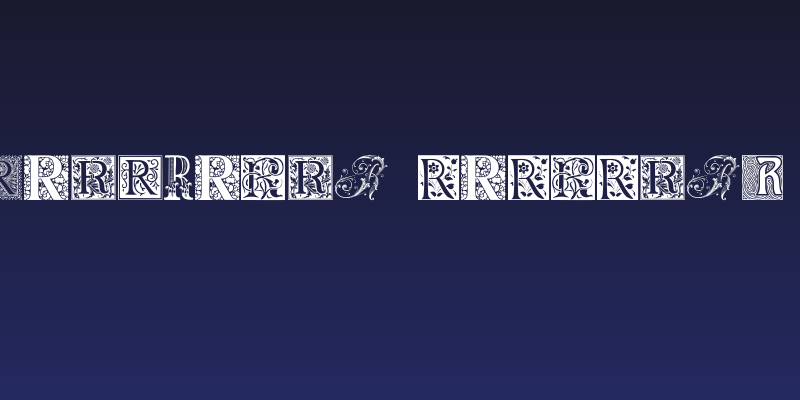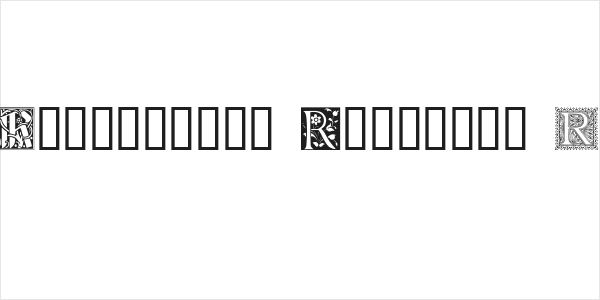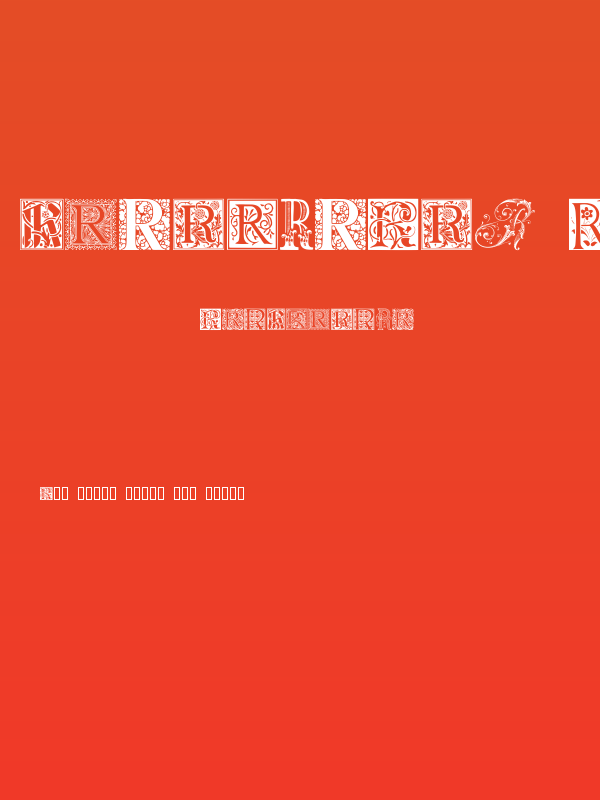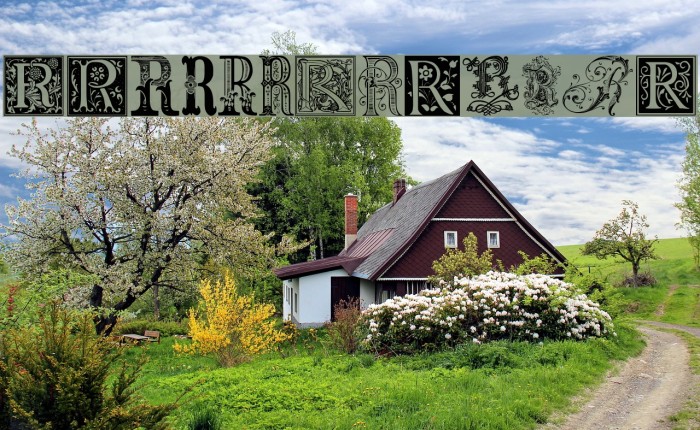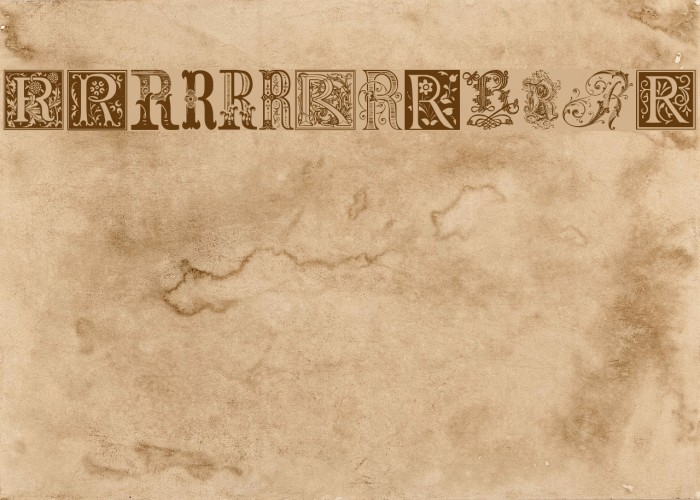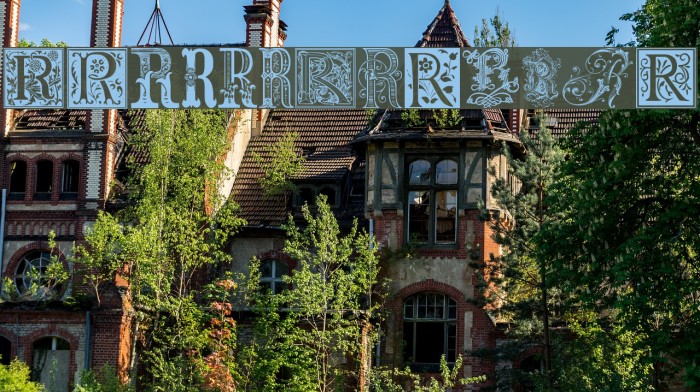
Ornamental Initials R Font
Ornamental Initials R Description
This font is a highly decorative and ornamental style, characterized by intricate and elaborate designs within each letter. Each character is uniquely embellished with floral and geometric patterns, creating a sense of elegance and artistry. The font is reminiscent of illuminated manuscripts and historical typography, often used to convey a sense of luxury and sophistication. The detailed embellishments make it ideal for decorative purposes, where the visual impact is paramount. This style is not suited for body text due to its complexity but excels in creating striking initial letters or titles.
| Use Case | Logos, Headlines, Decorative elements |
| Proposed Projects | Ideal for use in wedding invitations, luxury branding, historical themed projects, and decorative book covers. |